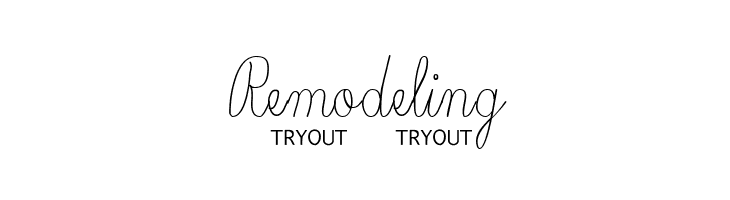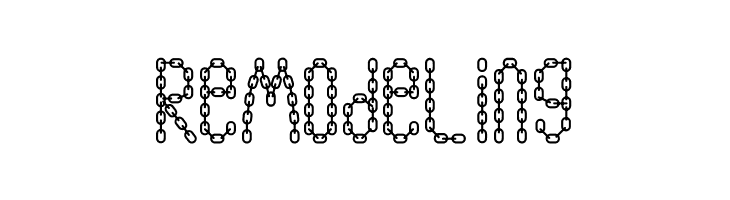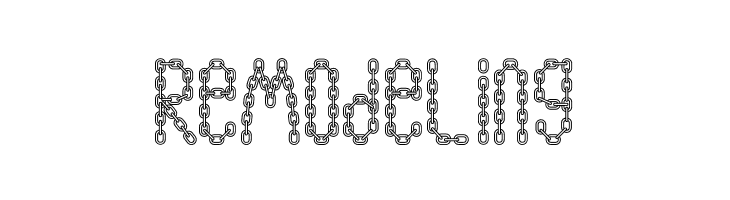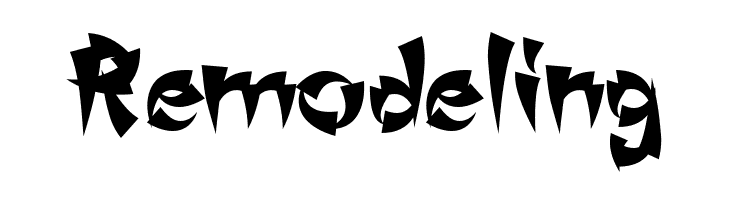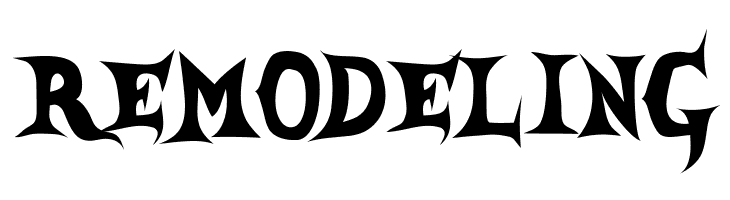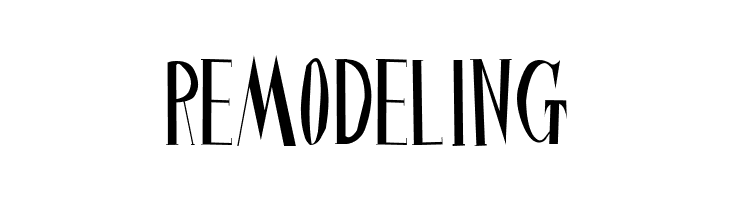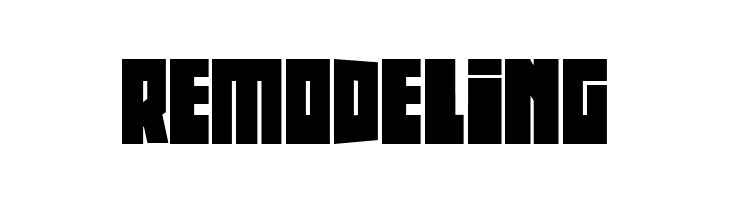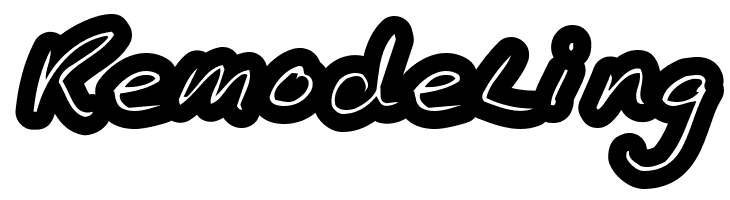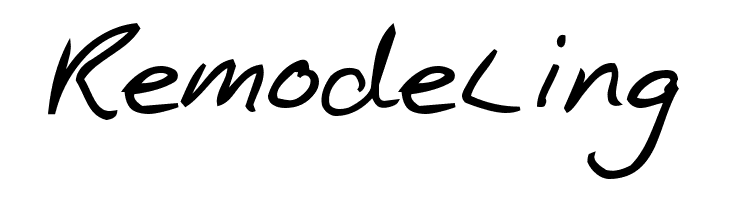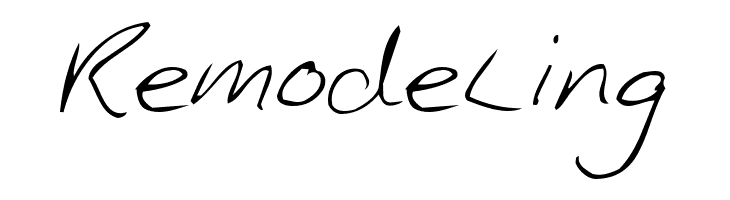
A decorative font with characters made of interconnected chain links.
A decorative font with characters designed as chain links, offering a bold and industrial look.
A bold, angular display font with a graffiti-inspired style.
A bold, gothic-style font with sharp, angular edges and a dramatic flair.
A tall, narrow font with high contrast and elegant, modern design.
A bold, cursive font with a playful and energetic style.
A bold, handwritten font with dynamic and fluid strokes.
A fluid and elegant handwritten script font with a personal touch.
A bold, playful font with a chunky, rounded style ideal for informal designs.
A playful, bold font with bubbly outlines and textured interiors.
A dynamic, expressive handwritten font with fluid strokes and artistic flair.
A playful, hand-drawn font with overlapping lines and a whimsical style.
A bold, condensed font with a modern and striking appearance.
A bold, rugged font with a hand-drawn, distressed appearance.
A bold, blocky font with a strong, condensed appearance.
A bold, jagged, and condensed font with an edgy, graffiti-like style.
A bold, geometric slab serif font with strong horizontal emphasis.
A playful, bold font with a bubbly, cloud-like appearance.
Not a valid font; consists of illustrative graphics.
A whimsical and spooky font with bold, angular characters and playful curves.
A bold, angular font with a rugged, vintage western style.